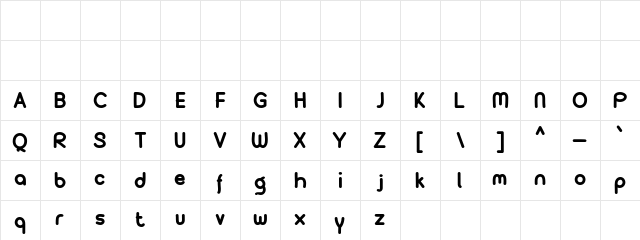
Fluffy Kitten Regular Free Font
Fluffy Kitten Regular
Foundry: HannaBie Creative
Designer: Lady Hanna
Design Context for Fluffy Kitten
Fluffy Kitten is a composed and adaptable typeface that performs quietly and consistently across a wide range of design contexts.